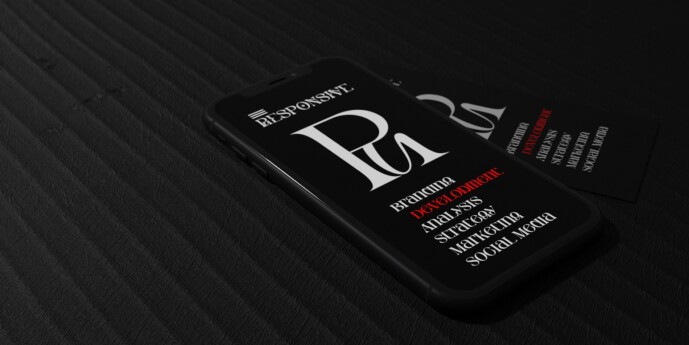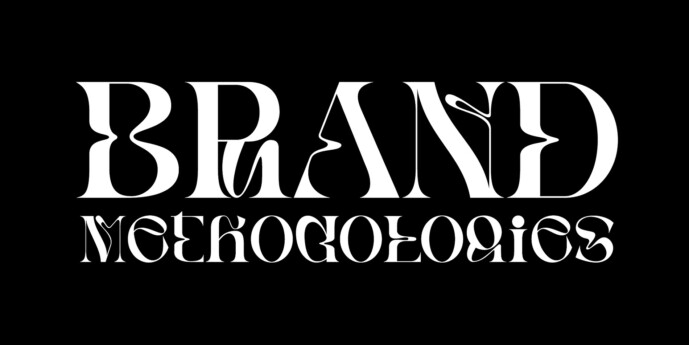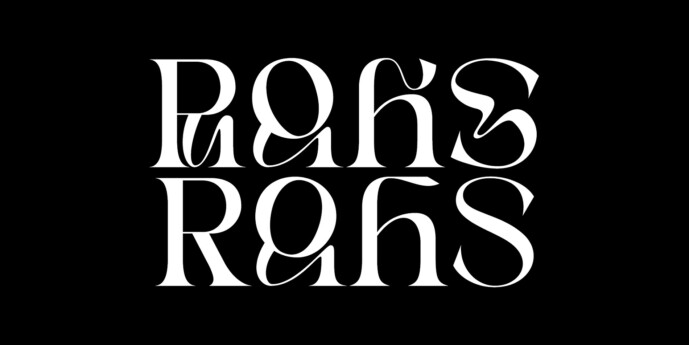
Rghs Font Family
Rghs Font Family, is a collection of display serif fonts designed for more impactful headlines and messaging.
Through distortion and repetitive transformation of the stem, it creates a unique sensibility and psychedelic typography. By maintaining a somewhat tight inter-character spacing and kerning system, the tension of the layout is increased, enabling a strong display effective.
It can be effectively used in headlines, UI/UX, and branding design. Additionally, the separately provided Alt style eliminates the dreamy distortion design. It gives designers more pairing choices.